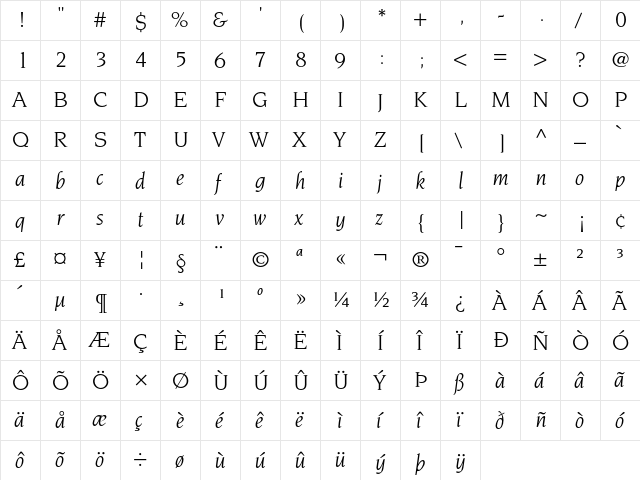
ITC Novarese Book Italic
Design Context for ITC Novarese Typeface
ITC Novarese takes a measured approach to typography — its balanced proportions and neutral character make it a reliable workhorse for both digital and print work. Its italic angle brings a sense of urgency and motion to the letterforms.
Pro Tip: Try ITC Novarese for annotation and caption copy alongside an upright companion — the contrast in angle creates a dynamic but ordered typographic system.